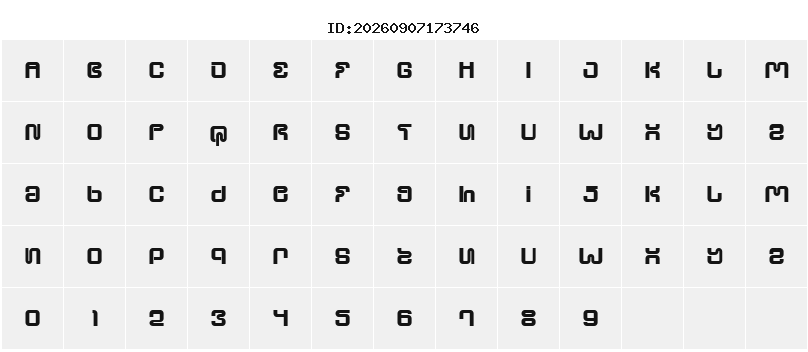
Ultra Supervixen Honeyed Out Preview
• Font Name: Ultra Supervixen Honeyed Out
• Font ID: Macromedia Fontographer 4.1.3 Ultra Supervixen Honeyed Out
• Full Font Name: Ultra Supervixen Honeyed Out
• Version: Macromedia Fontographer 4.1.3 8/22/00
• PostScript Name: UltraSupervixenHoneyedOut
• Character Count: 239
About Ultra Supervixen Honeyed Out.ttf
Ultra Supervixen Honeyed Out.ttf is a modern, elegant sans-serif font designed for ultimate readability and visual harmony. Perfect for branding, headlines, web design, and print materials.